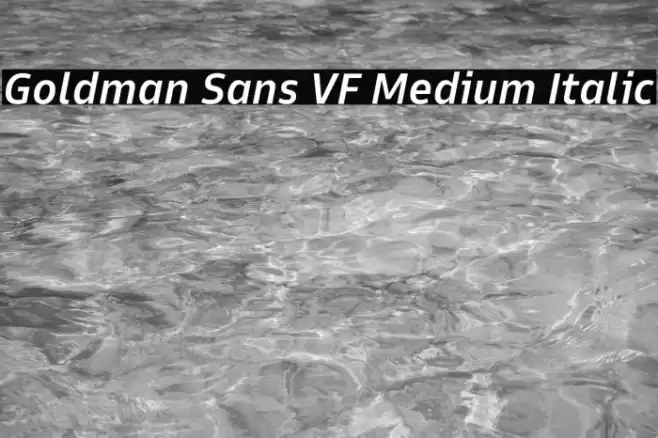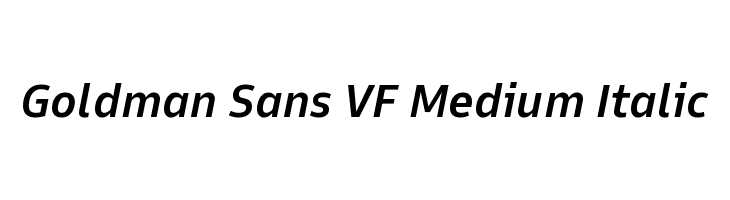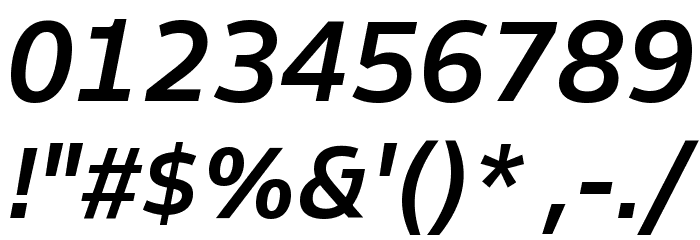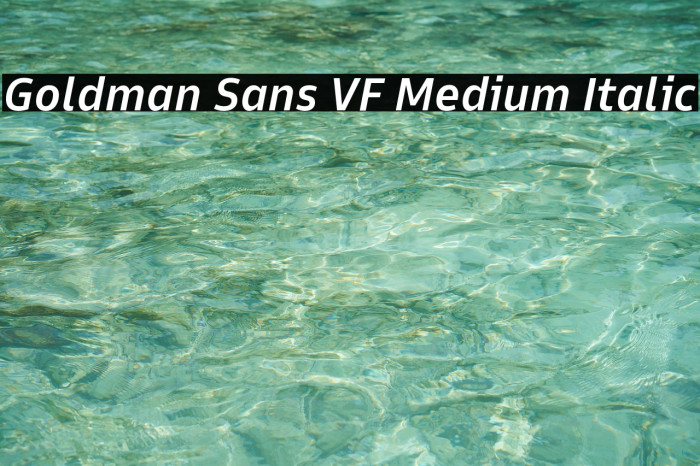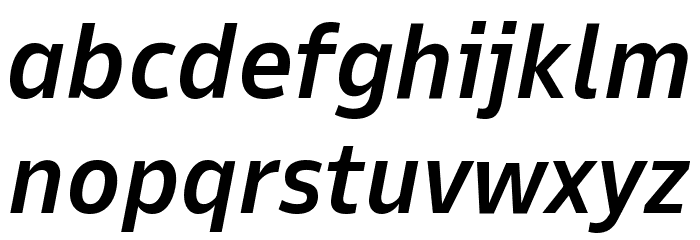
Goldman Sans VF Medium Italic Font
Goldman Sans VF Medium Italic Description
This font features a clean, modern sans-serif design with a medium weight and italic style. The characters are slightly slanted, giving a dynamic and forward-moving appearance. The strokes are consistent in thickness, providing a uniform look across all characters. The uppercase letters are bold and assertive, while the lowercase letters maintain a friendly and approachable feel. Numbers are clear and easy to read, making them suitable for various applications. Special characters are well-defined, ensuring versatility in usage. The overall design is sleek and professional, making it ideal for contemporary projects.
A modern, medium-weight italic sans-serif font with a sleek and dynamic appearance from Uncategorized fonts.
- Proposed Projects: Ideal for branding, advertising, digital media, and corporate presentations.